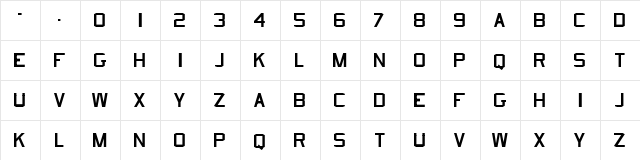
USN_Stencil Regular
Design Context for USN_Stencil Typeface
USN_Stencil borrows the utilitarian aesthetic of stencil lettering, with its characteristic cutaways and no-frills construction lending an industrial edge.
Ideal for industrial branding, streetwear, military-adjacent aesthetics, and urban signage projects.
Pro Tip: Pair USN_Stencil with raw, utilitarian design elements — exposed concrete textures, flat colour, and minimal ornamentation suit it well.